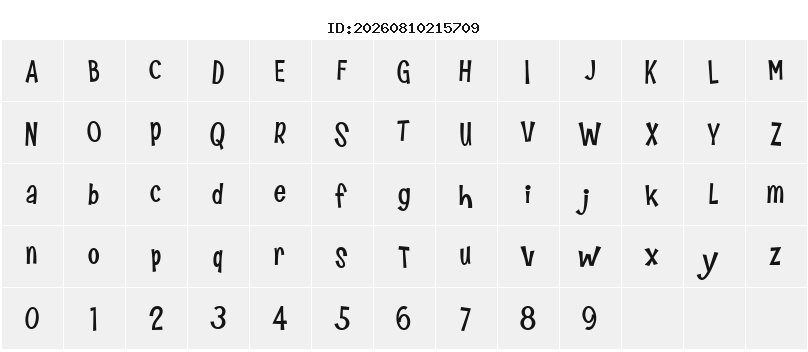
QK Frankie Preview
• Font Name: QK Frankie
• Font ID: Macromedia Fontographer 4.1 Snoopy Snails NF
• Full Font Name: QK Frankie
• Version: Macromedia Fontographer 4.1 03.07.2003
• PostScript Name: QKFrankie
• Character Count: 227
• Manufacturer: Nick's Fonts,
About QK Frankie.ttf
QK Frankie.ttf is a modern, elegant sans-serif font designed for ultimate readability and visual harmony. Perfect for branding, headlines, web design, and print materials.